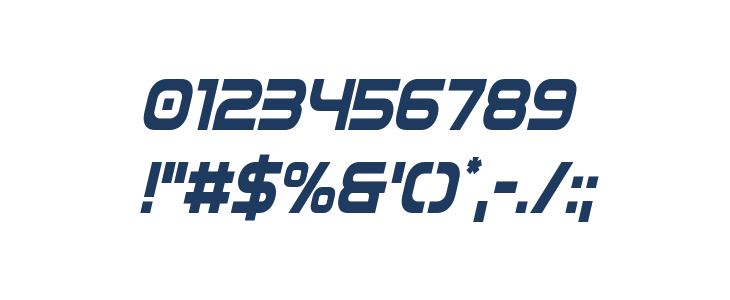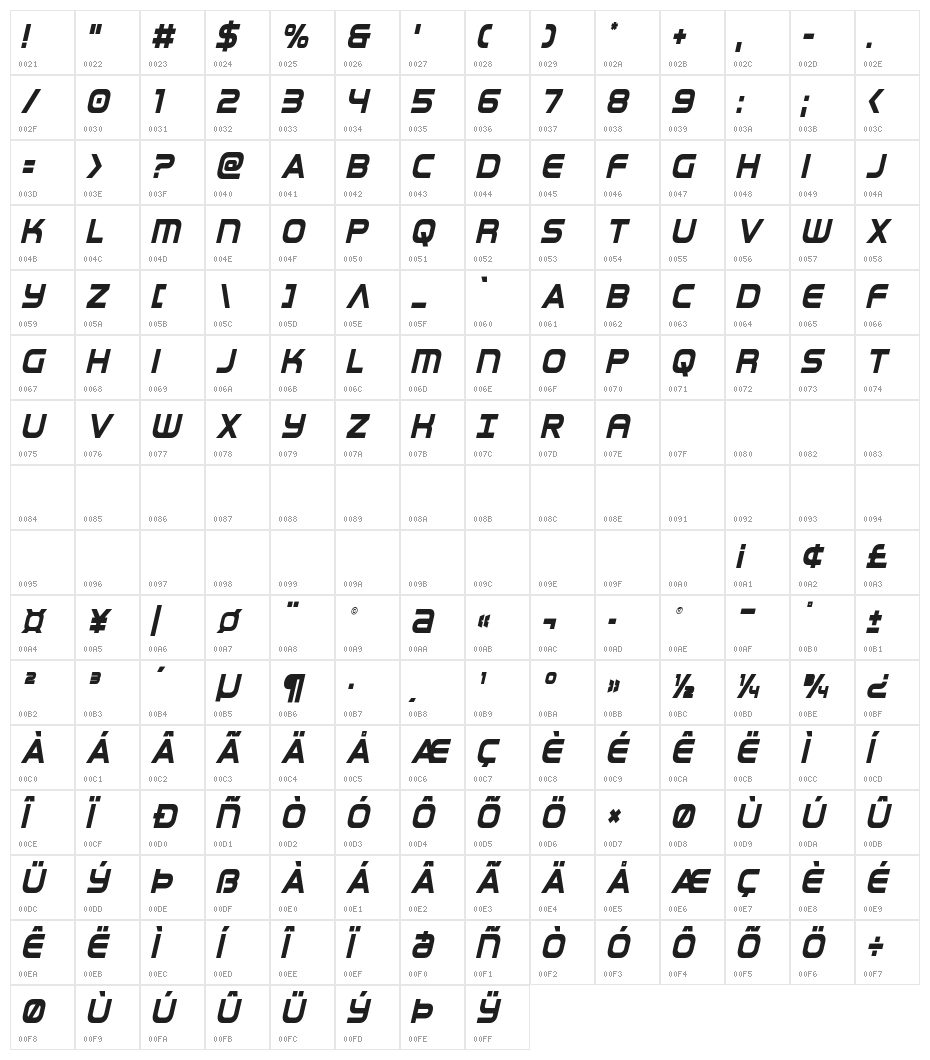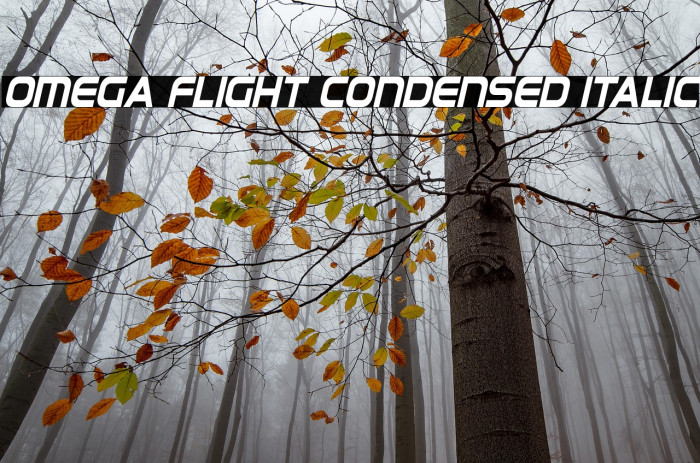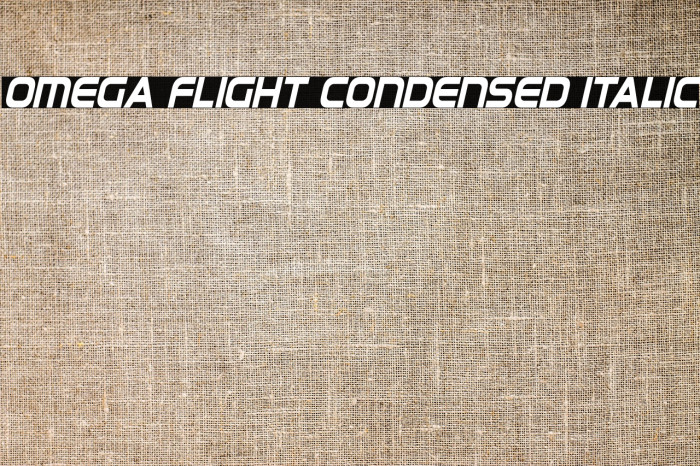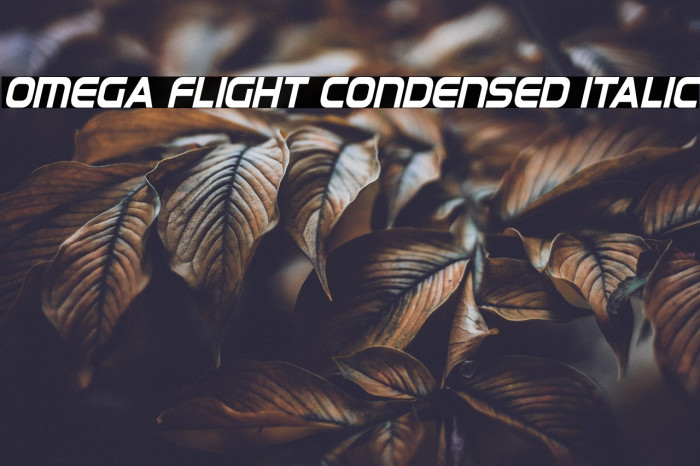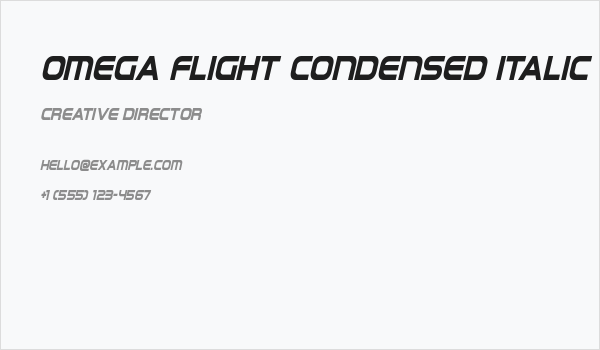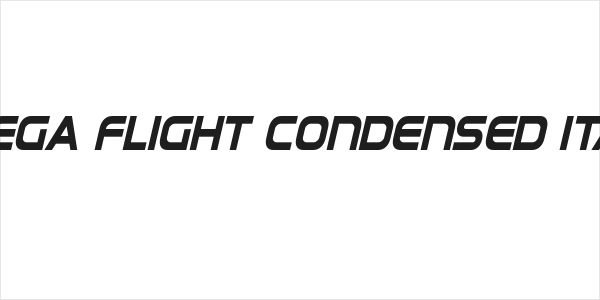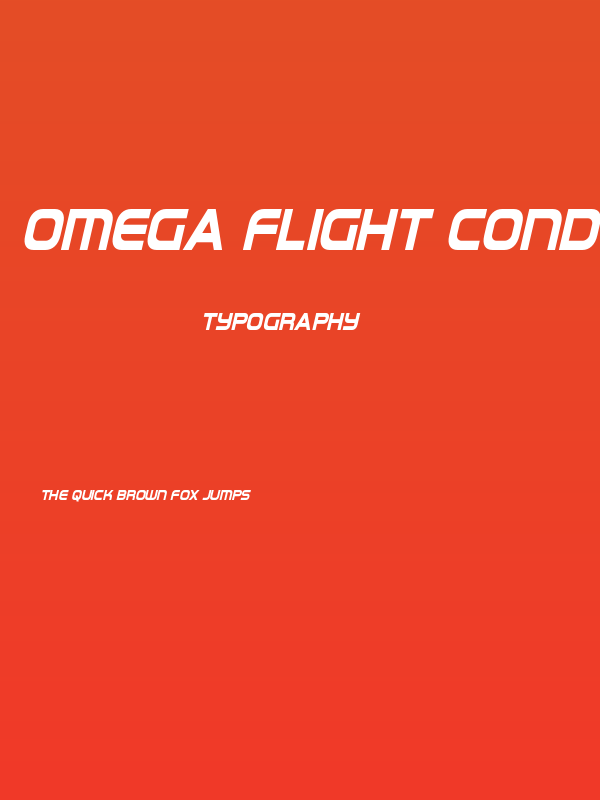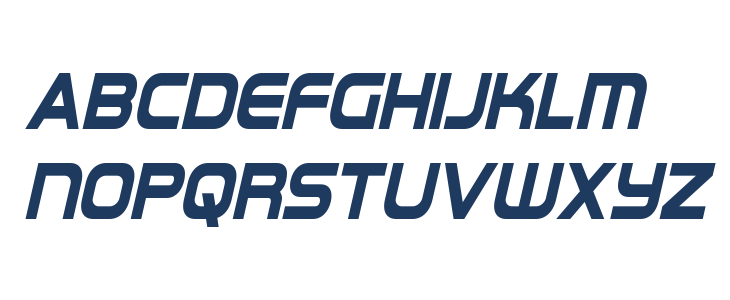
Omega Flight Condensed Italic Font
Omega Flight Condensed Italic Description
This font features a sleek, modern design with a condensed and italicized style. The characters are bold and have a futuristic appearance, making them ideal for projects that require a dynamic and energetic look. The uppercase and lowercase letters maintain a consistent slant, enhancing the italic effect. The numbers and special characters are designed to match the overall aesthetic, with smooth curves and sharp angles. The font's condensed nature allows for efficient use of space, making it suitable for headlines and titles where impact is essential.
| Proposed Projects | Ideal for technology branding, sports team logos, dynamic posters, and modern advertising campaigns. |